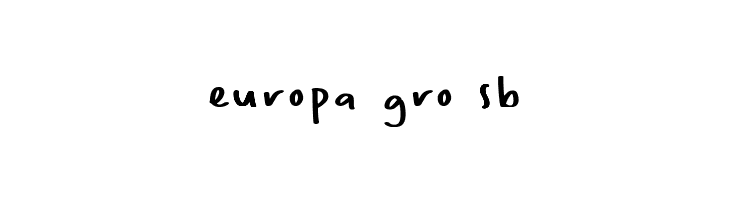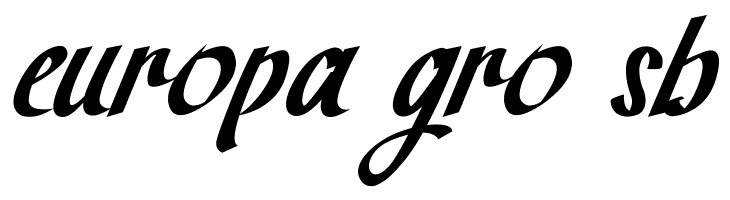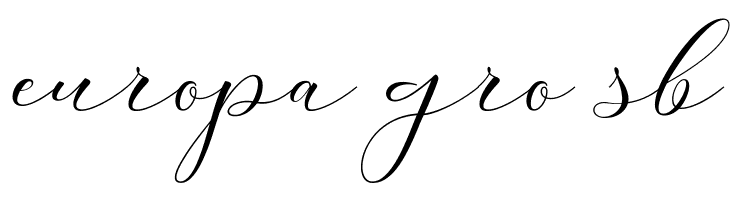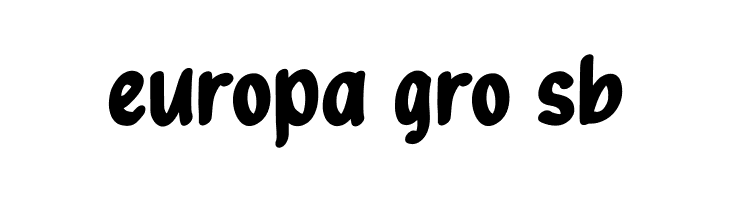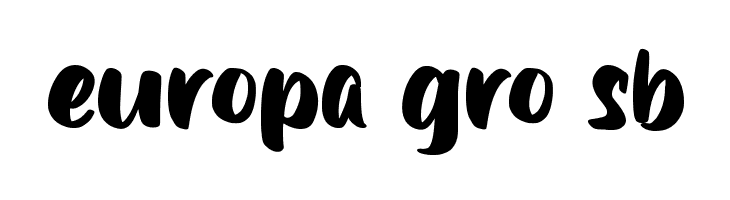
A playful, handwritten font with irregular strokes and a casual, approachable style.
An elegant, flowing script font with varied stroke thickness and interconnected letters.
An elegant, flowing script font with a calligraphic style.
A bold, brush-style font with dynamic, hand-drawn strokes.
A playful, handwritten font with a casual and whimsical style.
A dynamic, cursive script font with flowing, artistic strokes.
An elegant script font with fluid, cursive strokes and high contrast, ideal for formal and decorative uses.
A bold, expressive script font with a lively, handwritten style.
A bold, playful, hand-drawn font with rounded, informal characters.
A bold, playful script font with a handwritten feel.